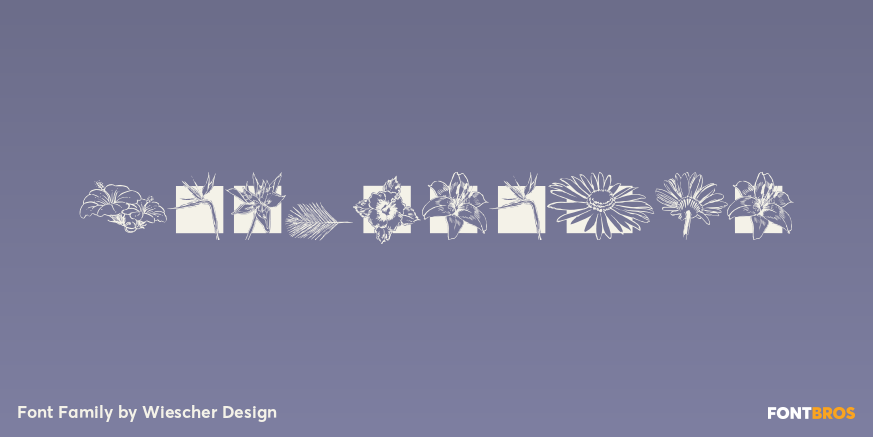
HomeFont BrosDingbatFleuraloha Dingbat Fleuraloha FacebookXPinterestWhatsApp 1 of 1 About Fleuraloha FleurAloha are flowery embellishments Hawaiian style! Your very ?Aloha? designer, Gert Wiescher  DOWNLOAD ON FONT BROSThis font is sold and delivered by Font Bros. Font Canyon may earn a commission if you buy through this link. People also explored Synchastro Font Hello Marie Font TWS Mora Font Rose Buds Line Monogram Font Black Irons Font My Heart Font Underwood Robertson Font Marvin Font Butter Fly Font 296 0 TagsFleuraloha Font Previous articleKokomoNext articlePopgod Pro LEAVE A REPLY Cancel reply Comment: Please enter your comment! Name:* Please enter your name here Email:* You have entered an incorrect email address! Please enter your email address here Website: Save my name, email, and website in this browser for the next time I comment. Personal Use Free Tide Personal Use Free Read more about this font Child Writing Free Personal Use Free Read more about this font Cinderella Personal Use Free Read more about this font Stentiga Personal Use Free Read more about this font BLOG Elegant Wedding Invitation Fonts – Handwritten & Script Fonts Elegant Wedding Invitation Fonts Your wedding day is one of the most important moments of your life, and every detail matters—including your invitation design. Our... Where to Buy American Fonts Online in 2024 Transform Your Website: Elevate Your Typography with 7 Best Web Font Generators To increase your work productivity, choose the most readable fonts.